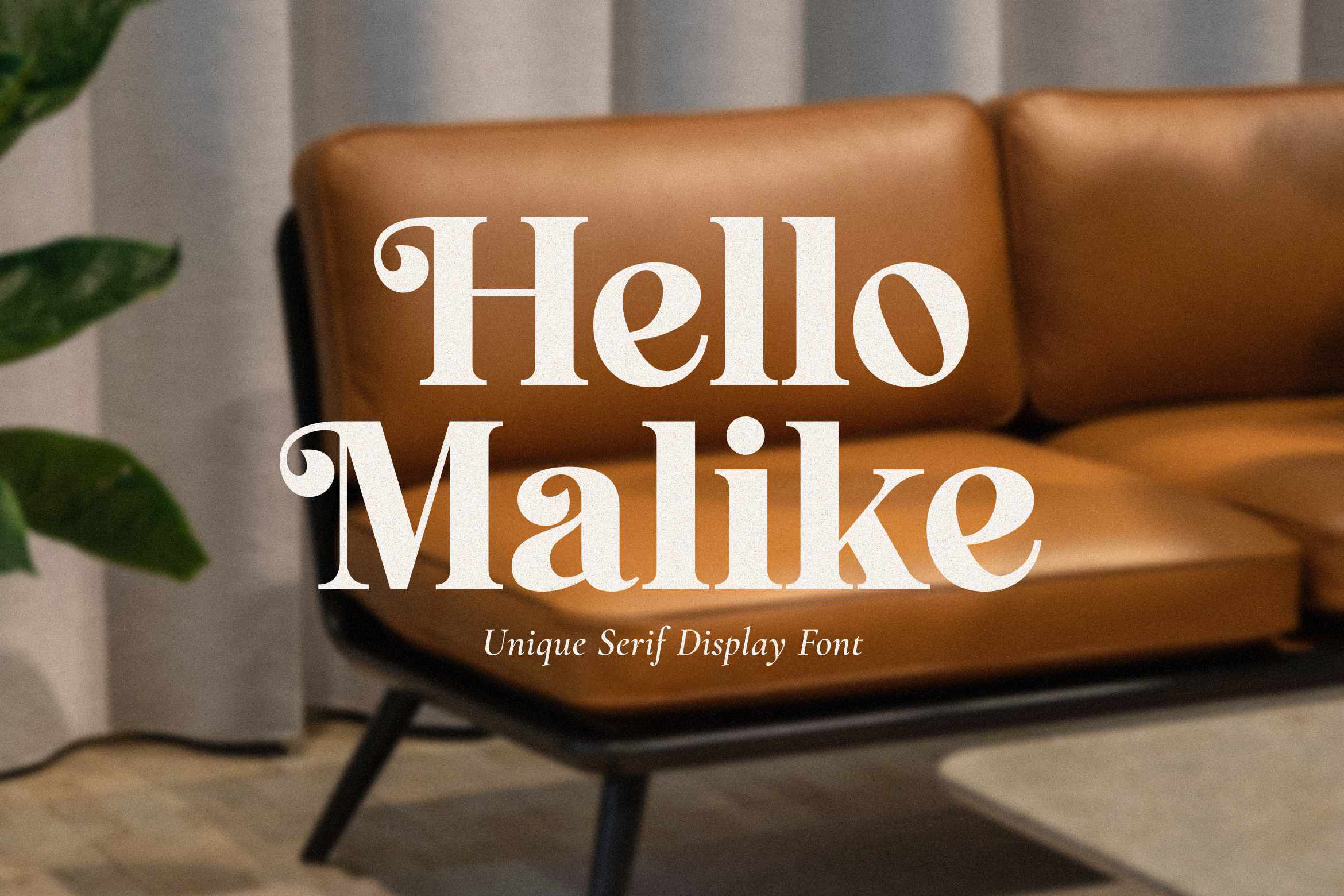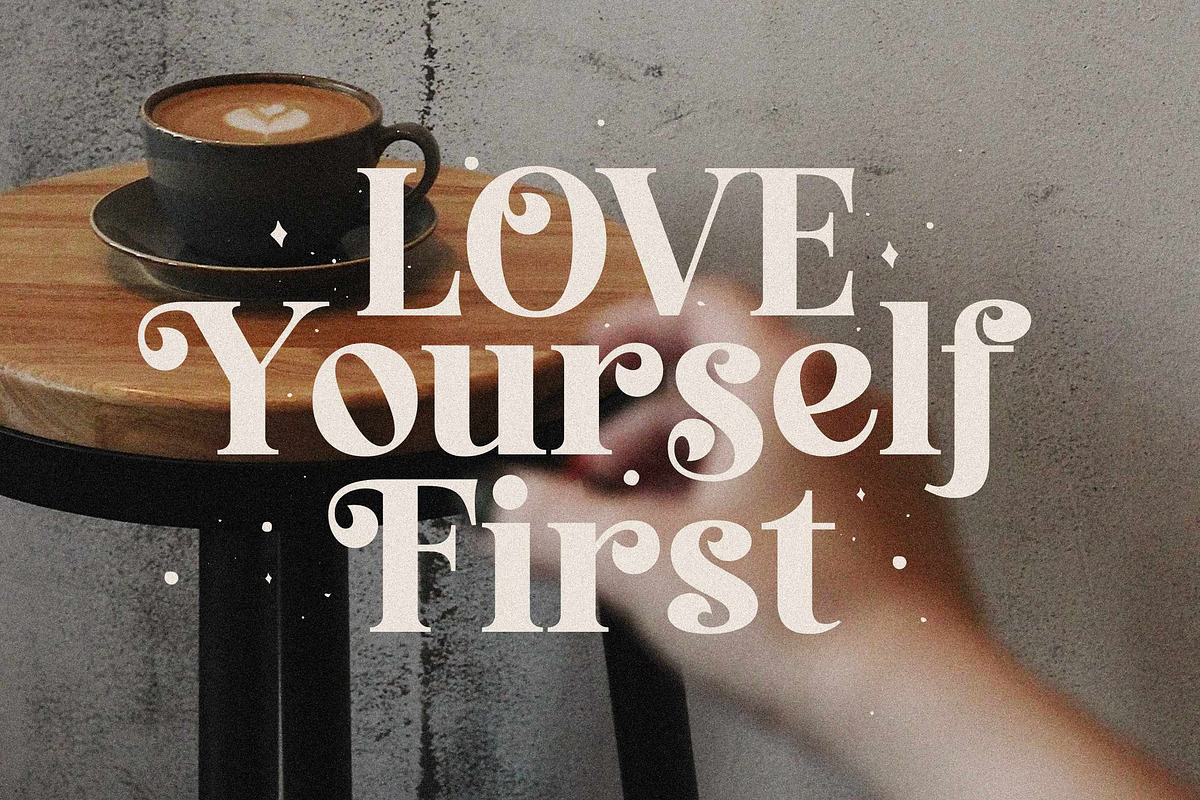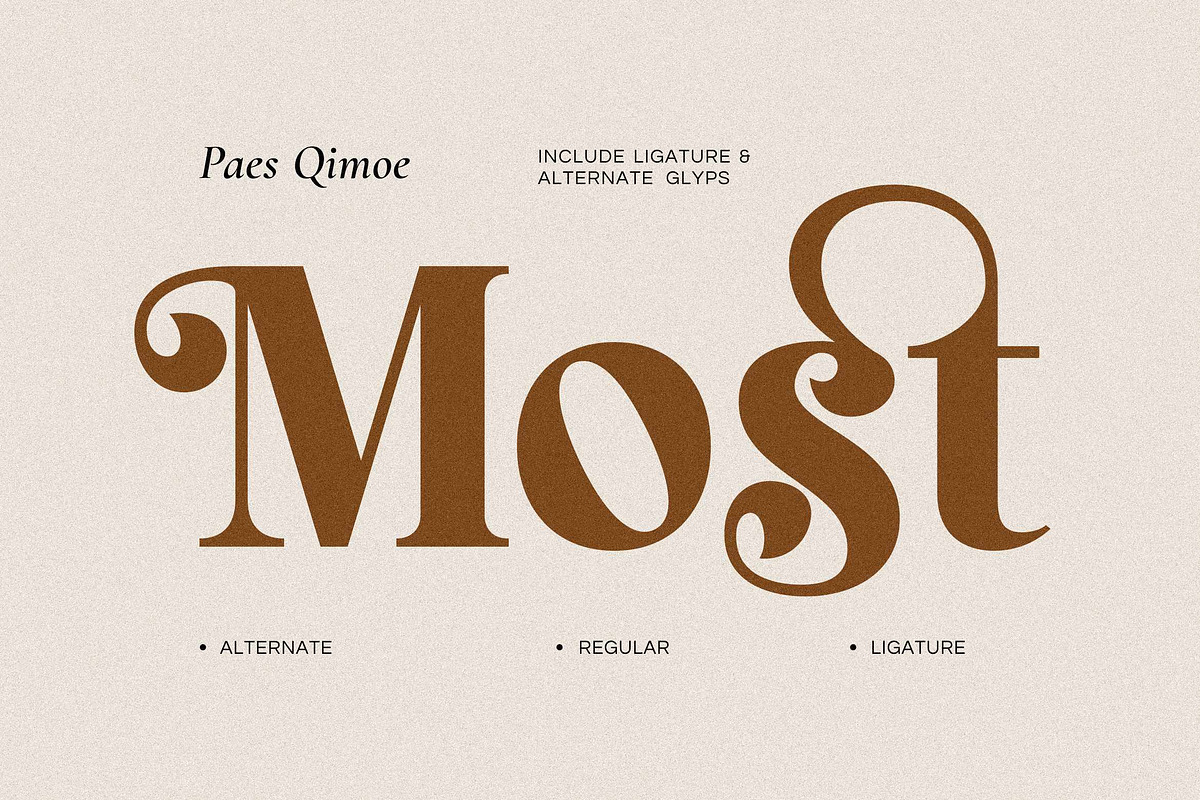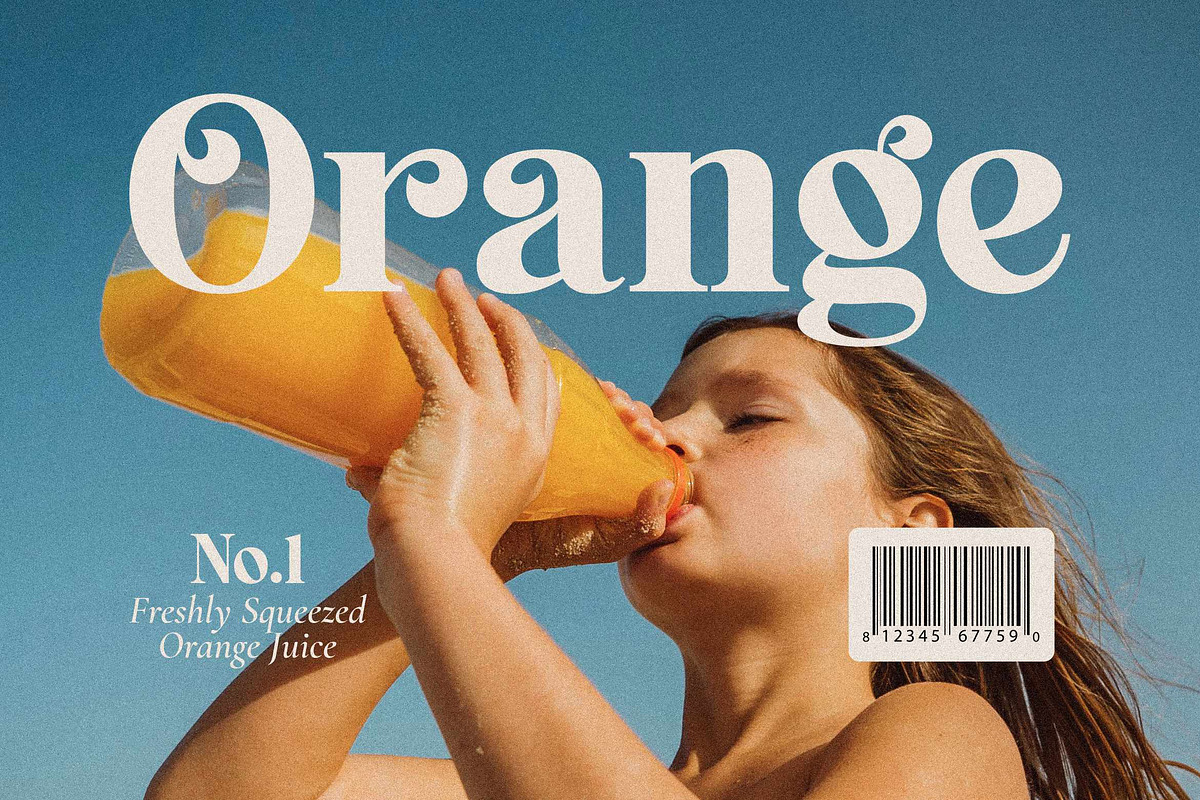
Hello Malike - Retro Serif Typeface
Hello Malike is a stunning and retro serif typeface that effortlessly blends modern elegance.
The defining feature of Malike lies in its graceful swashes and distinctive curls, particularly visible in the alternate uppercase set.
- Uppercase and Lowecase Characters.
- Numerals and Punctuations.
- Alternates and Ligatures.
- Multilingual Support.